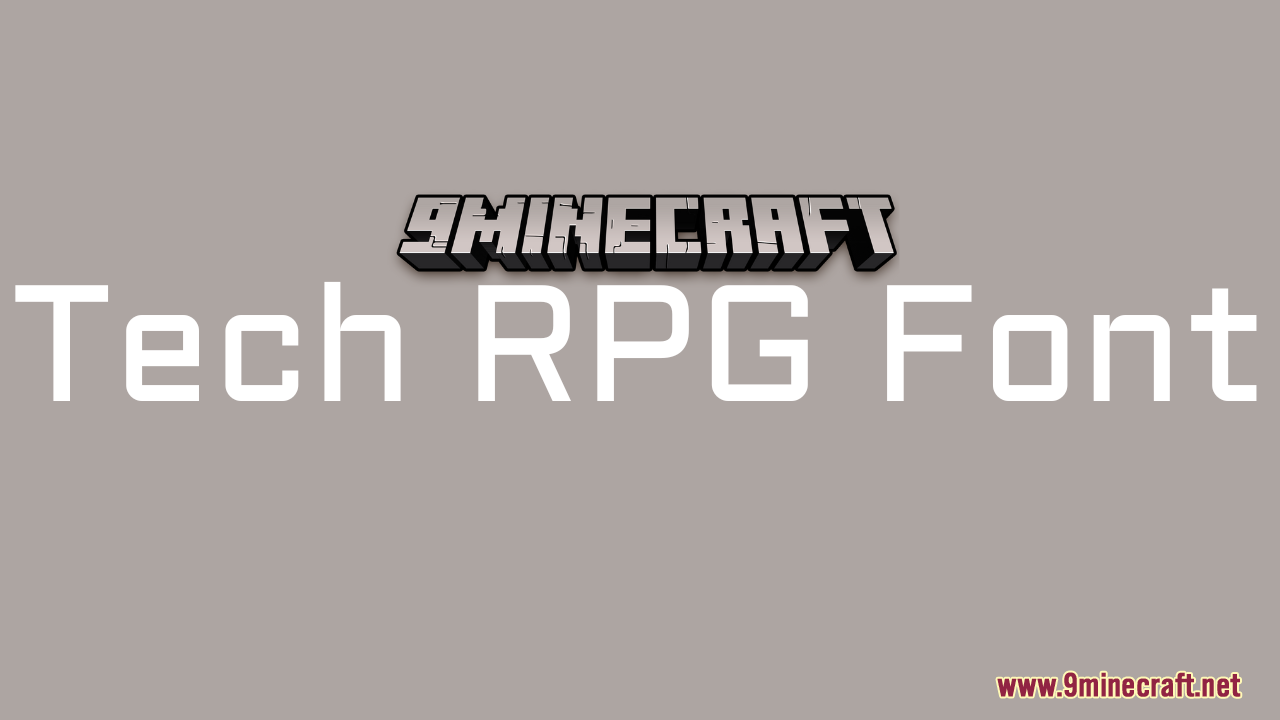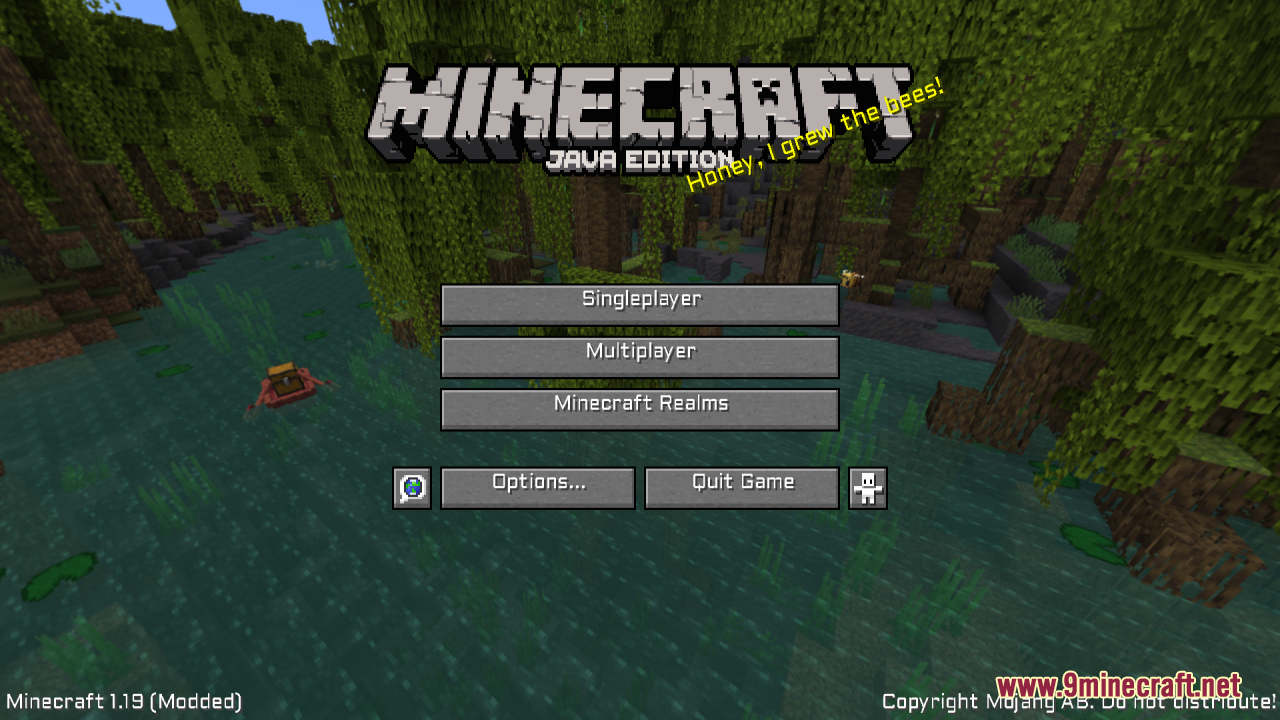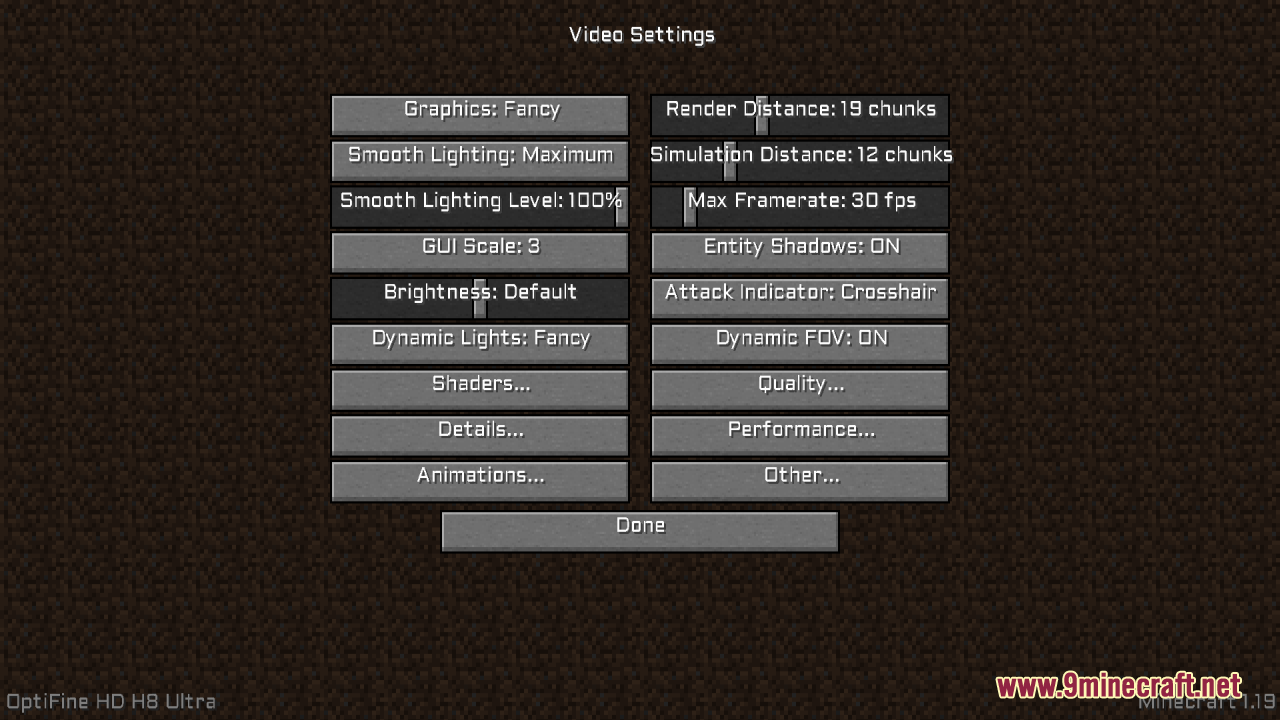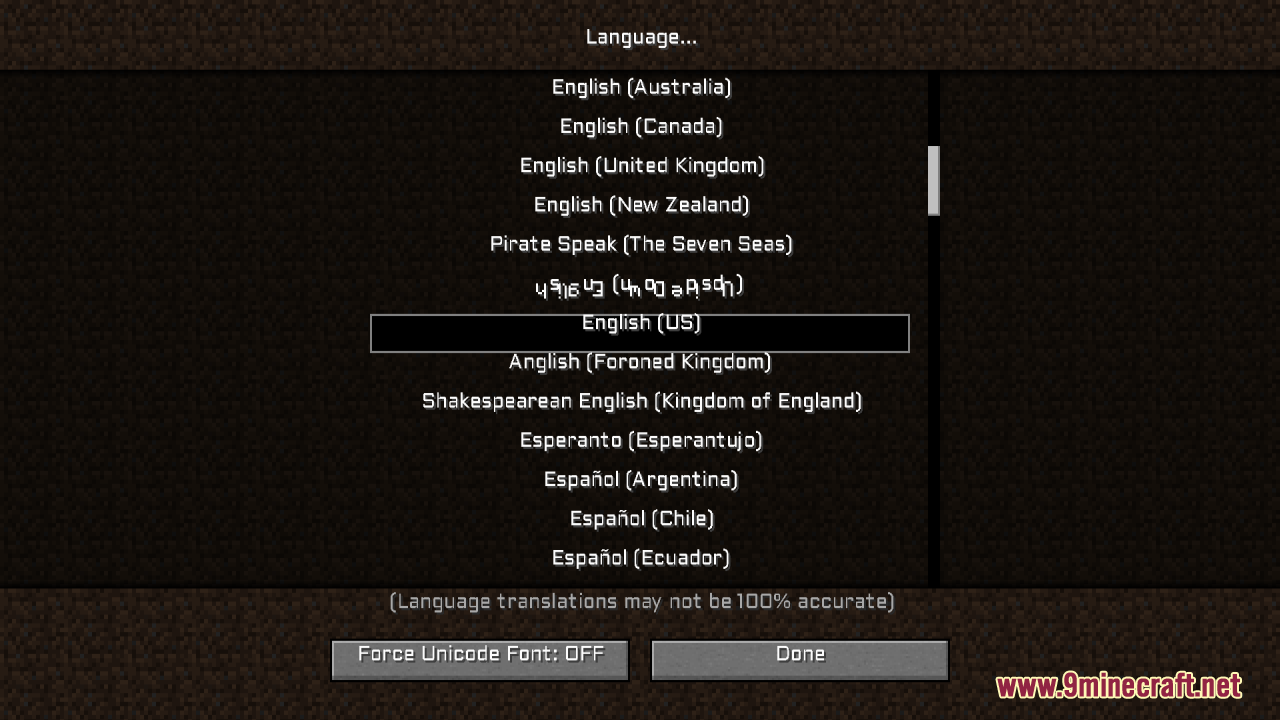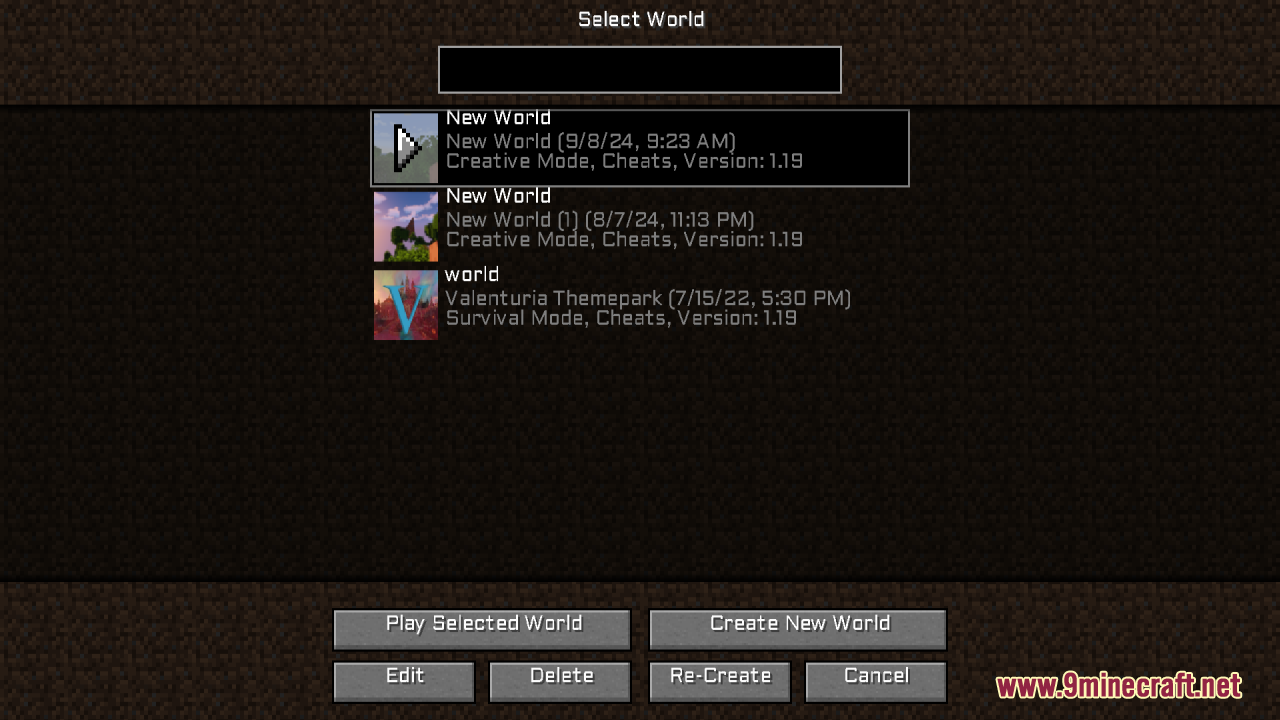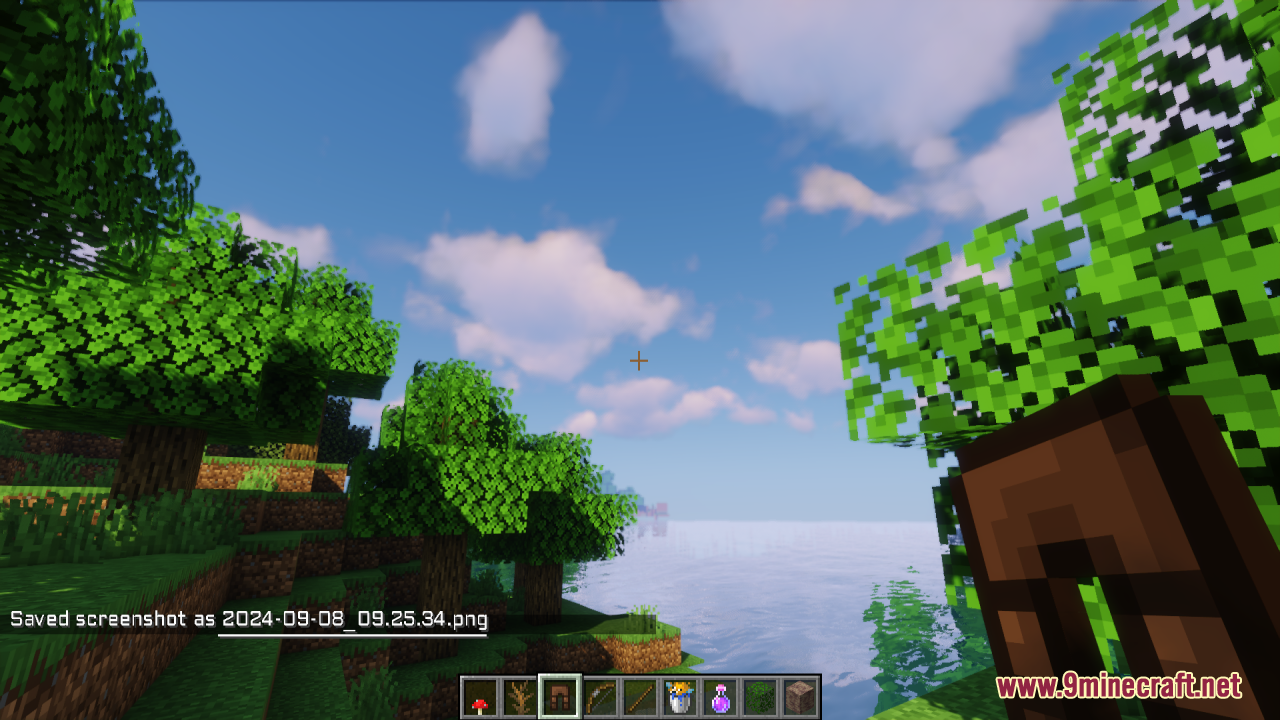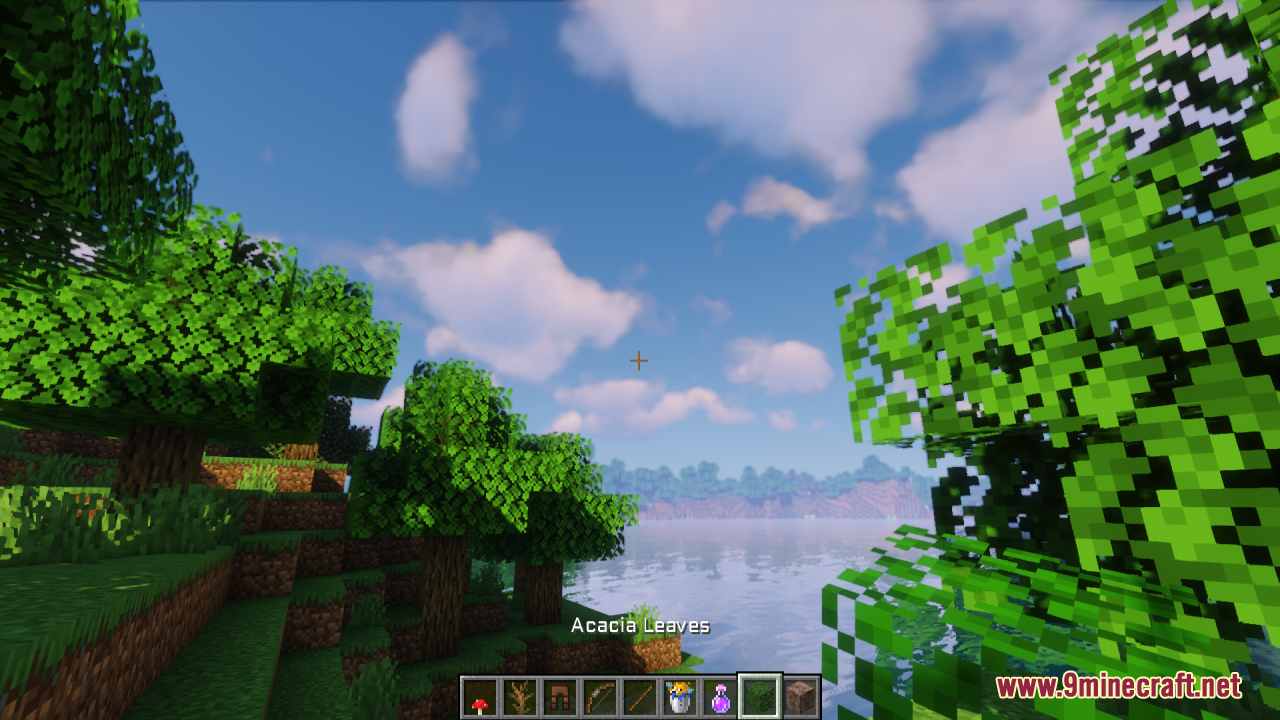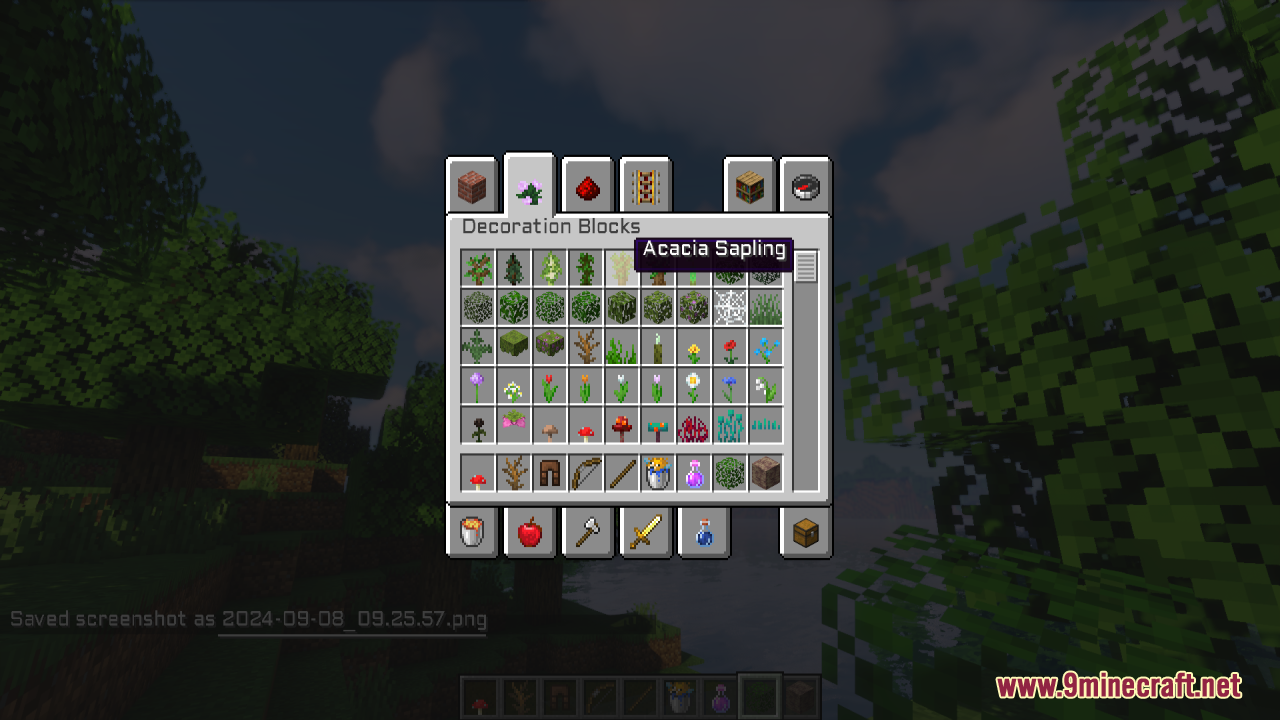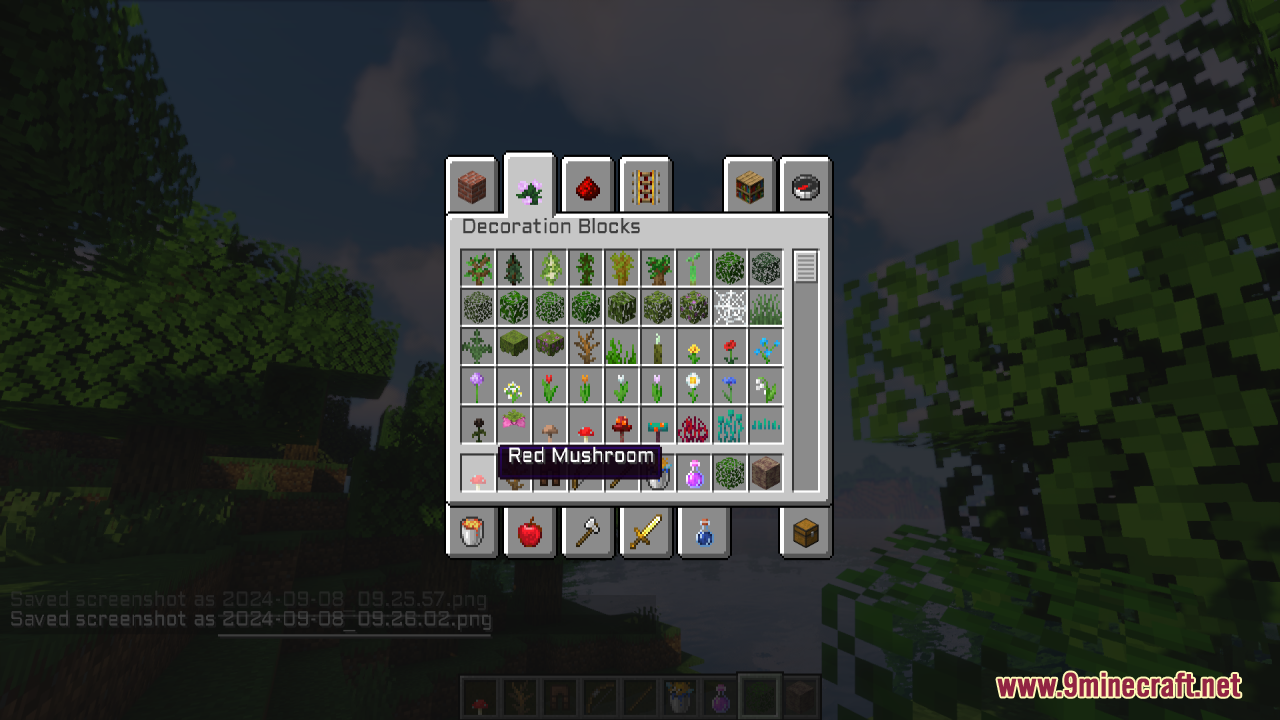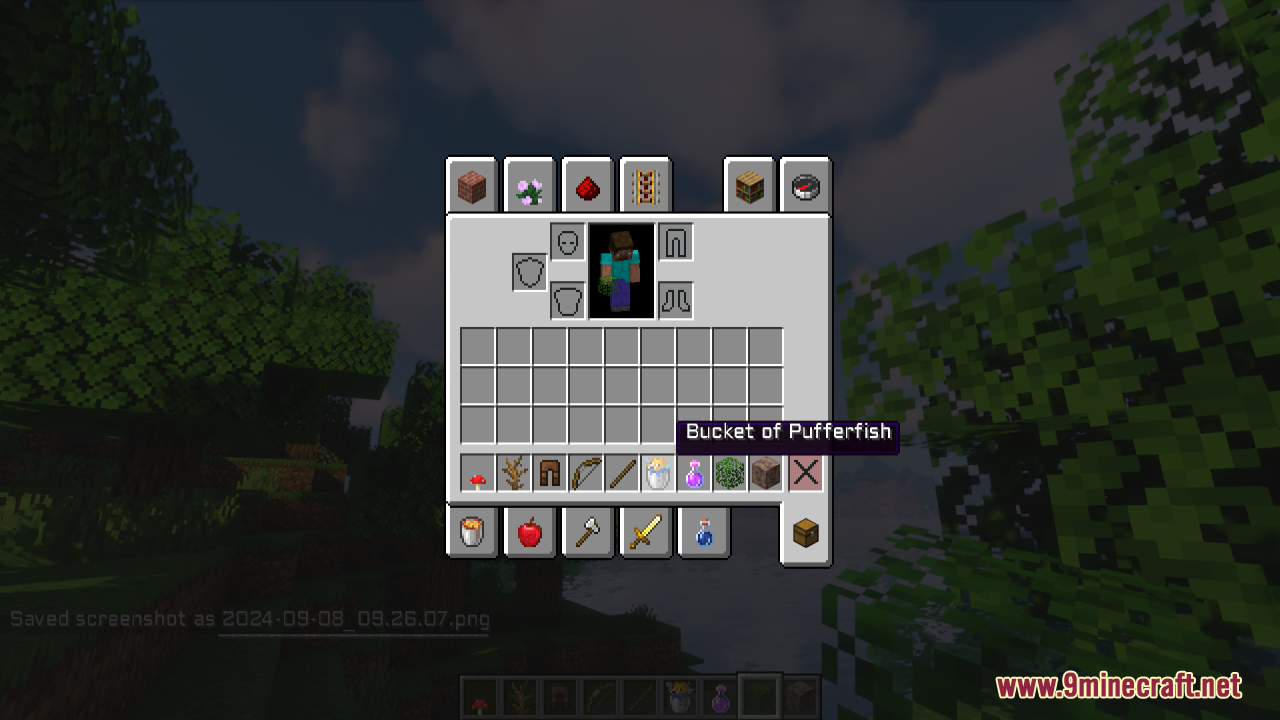
Tech RPG Font Resource Pack simply offers a sleek, modern font to enhance the vanilla Minecraft experience. The font is inspired by high-tech designs, giving a futuristic and RPG-like feel to all in-game text. Whether you’re reading tooltips, menus, or chat, the new font adds a fresh and modern touch to the interface. In general, designed with a crisp and clean tech style, the font replaces the standard Minecraft text with something that feels futuristic yet remains highly readable.